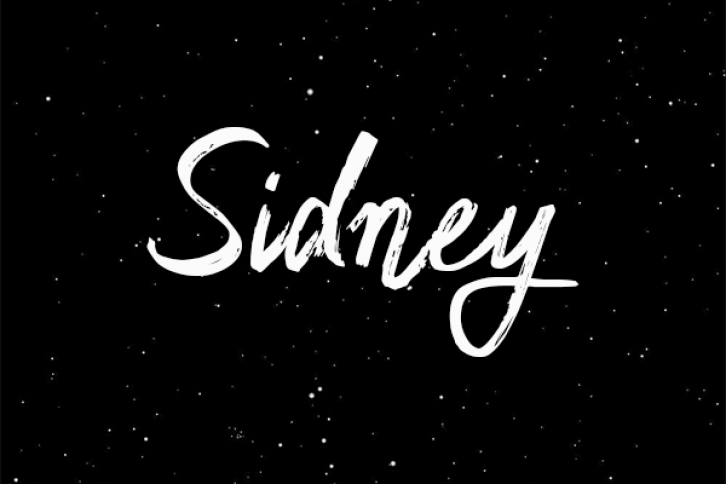
Sidney is the best brushed choice for creating eye catching logos, branding and quotes. Every letter has a unique and beautiful touch, which will make your design come alive!